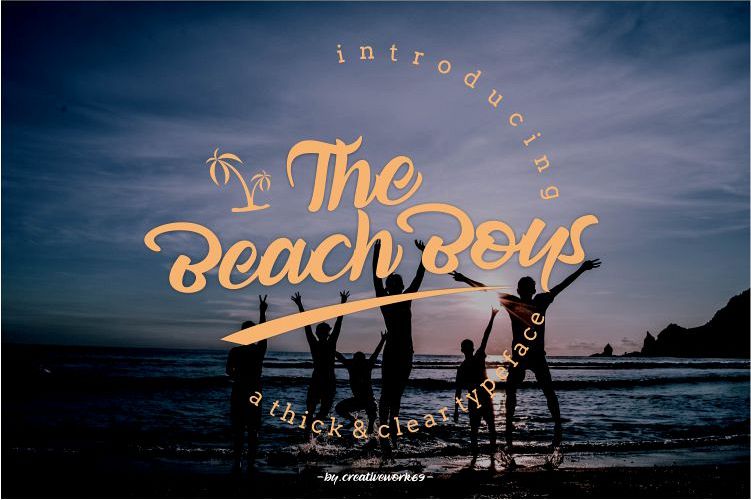
TheBeachBoys
TheBeachBoy-Regular
The Beach Boys is Clear and Thick Typeface, it is suitable for Product Logos, Product Name, logo beauty trio vector clipart wedding clothing web company girl invitation monogram elegant modern classy gold print poster quote illustration card element font trio photography food bakery restaurant market animal vegetables branding template